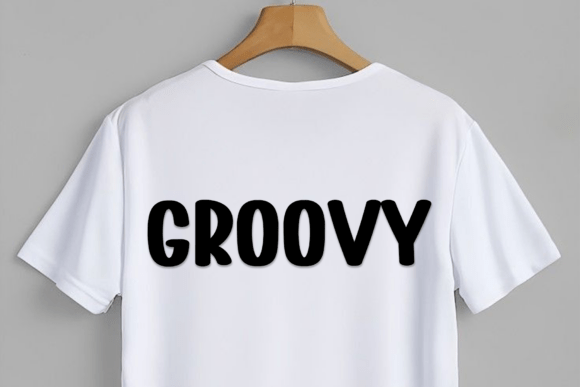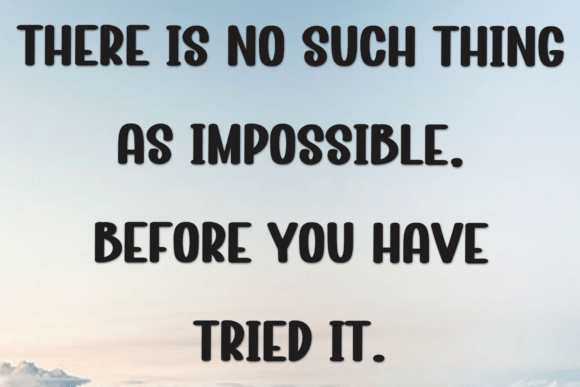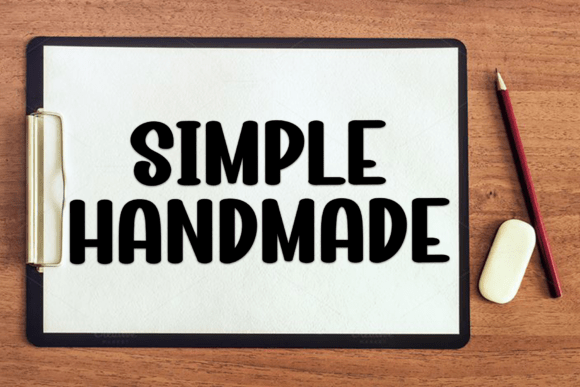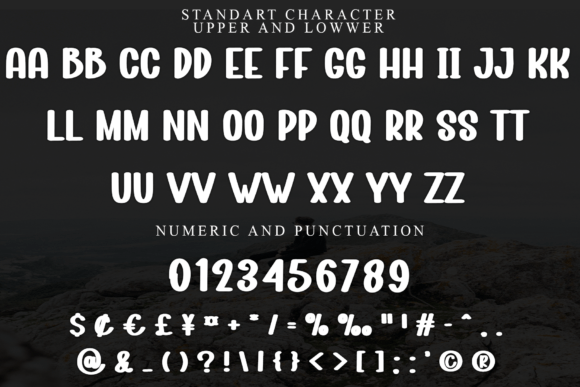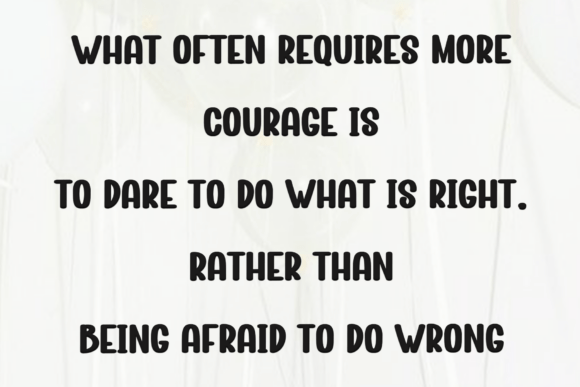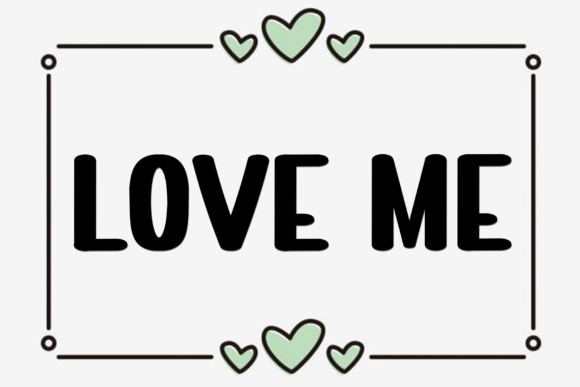
Discovering the Perfect Font for Your Next Creative Project
Have you ever stumbled upon a font that speaks to you, a font that captures the essence of your artistic vision and elevates your designs to the next level? For me, that font was Brother Font, a beautiful and eye-catching typeface that adds a soft, unique touch to any project.
Brother Font is a versatile font designed for creative works, from design projects to crafts. Its distinctive strokes give it a special character, making it meaningful and perfect for a wide range of applications. Whether you’re working on a Windows or open-source platform, Brother Font is compatible with various applications, making it an ideal choice for designers.
As a designer, I can attest to the value of having a reliable and versatile font like Brother Font in your toolkit. Its natural style enhances your designs, making them appealing to many audiences across different artistic and creative fields.
Key Features of Brother Font
- Unique Characteristic: Brother Font is designed with a unique blend of modern and traditional elements, making it suitable for a wide range of applications, from business documents to creative projects.
Brother Font Review
As a designer, I was excited to dive into the Brother Font and see what it had to offer. Here are my honest thoughts.
- The font has a unique, vintage feel that can add a touch of elegance to any design.
- The variety of weights and styles offers a lot of flexibility for different design applications.
- The font is highly legible, even at smaller sizes, making it a great choice for body text.
- The font can feel a bit overused, especially in certain design niches where it’s become a trend.
- The bold weights can be a bit too bold, making them difficult to read in certain contexts.
- The font doesn’t have as many language support options as some other fonts in its class.
Overall, the Brother Font is a solid choice for designers looking for a unique, vintage feel. While it has some limitations, it’s a great addition to any font collection. With careful selection and application, it can add a touch of sophistication to any design.
Brother Font is suitable for a variety of designs, including:
- Business cards and stationery